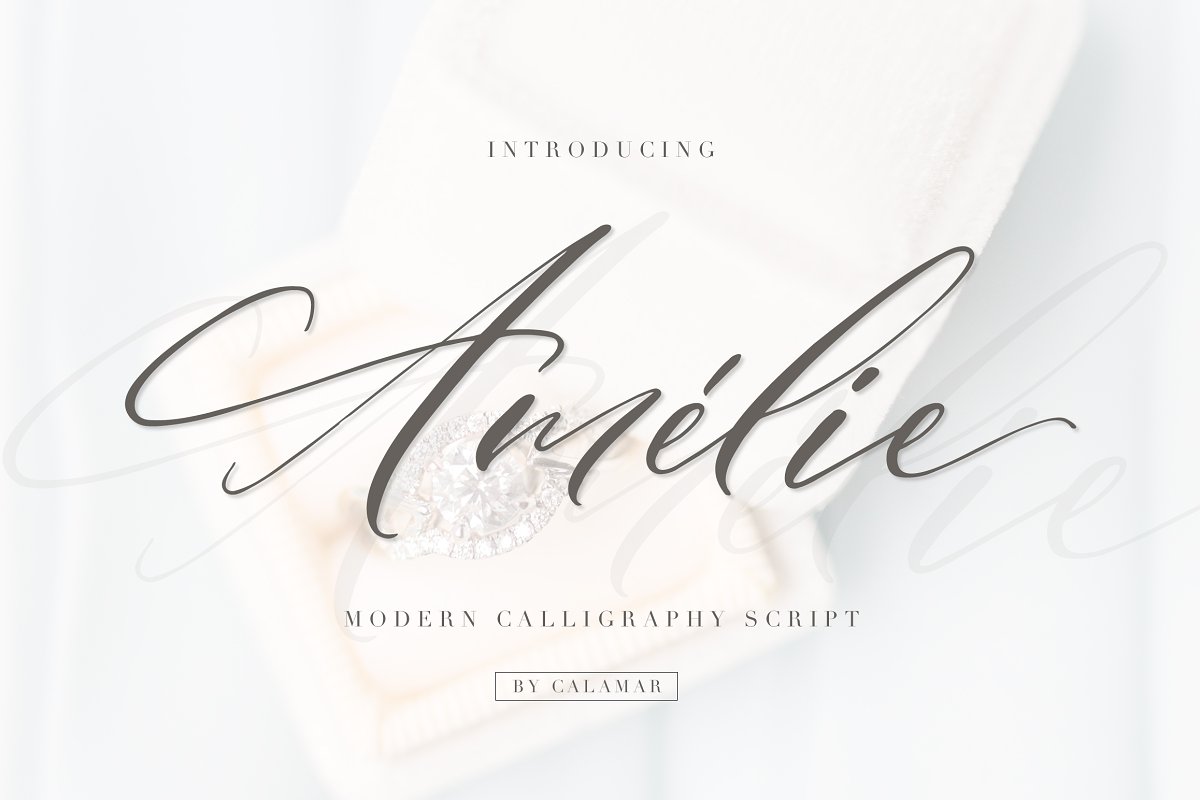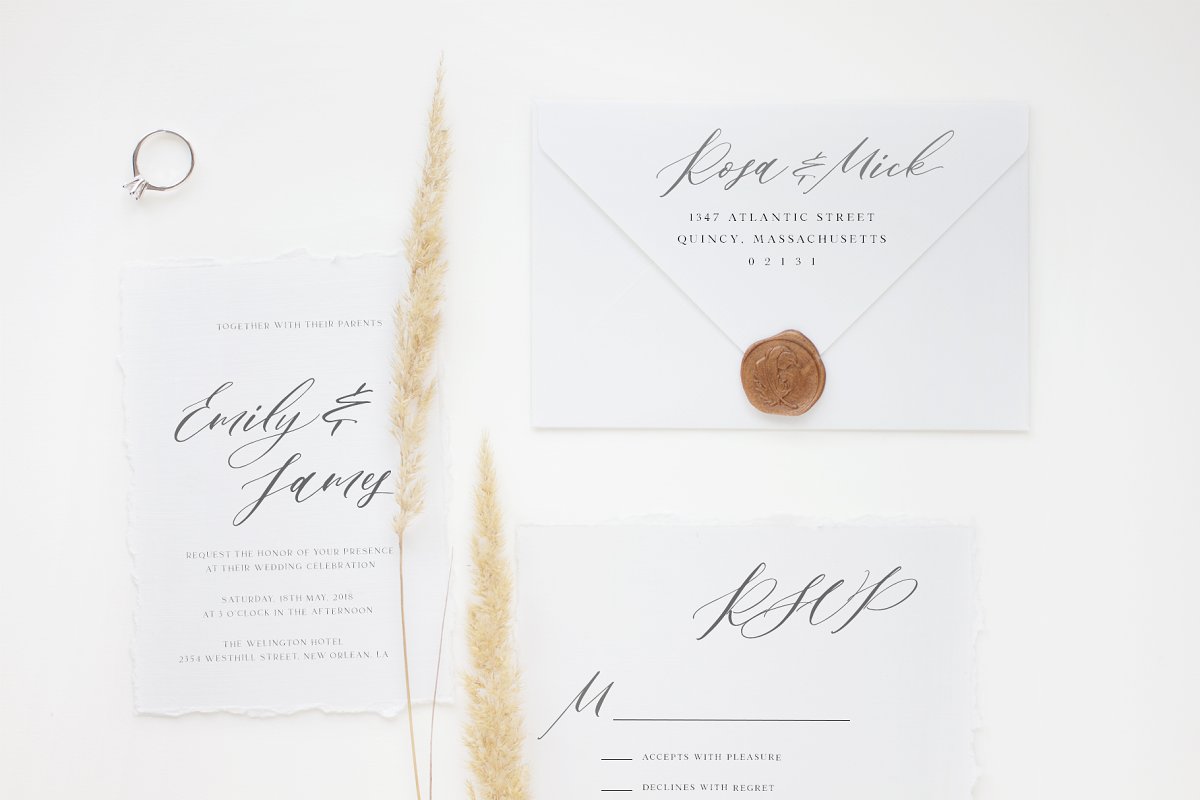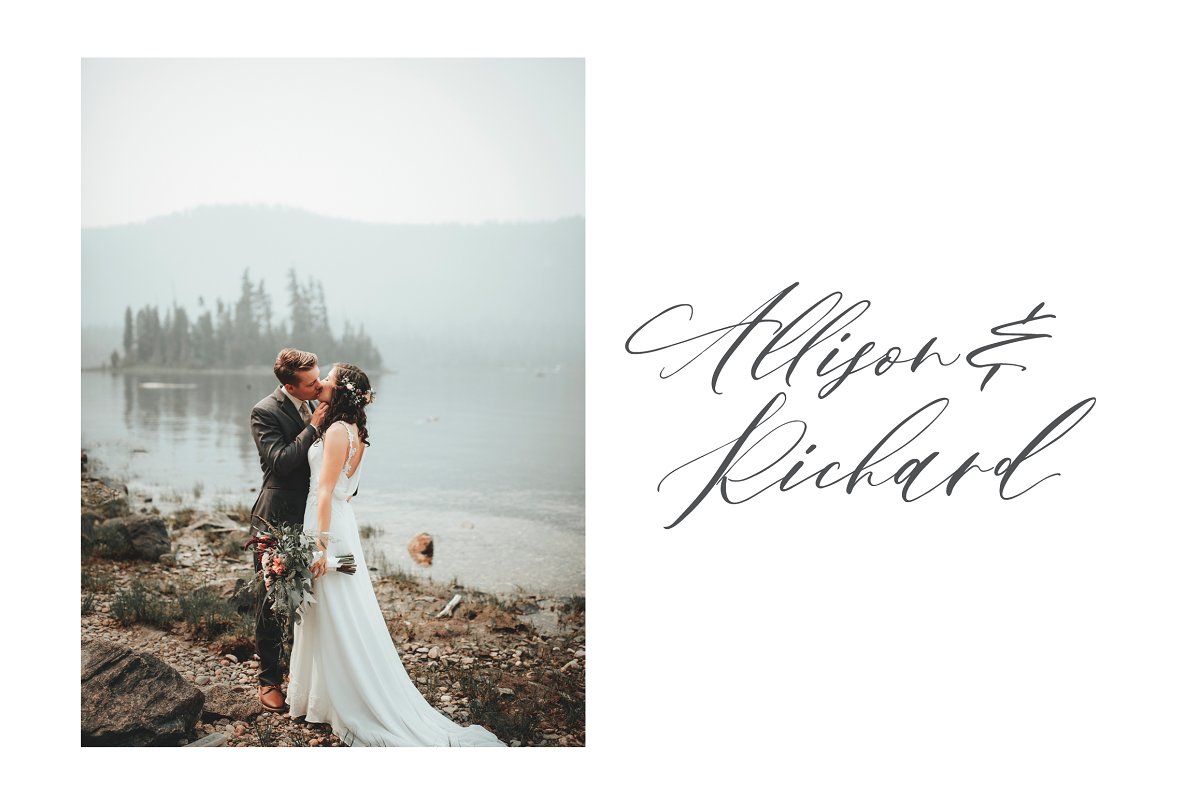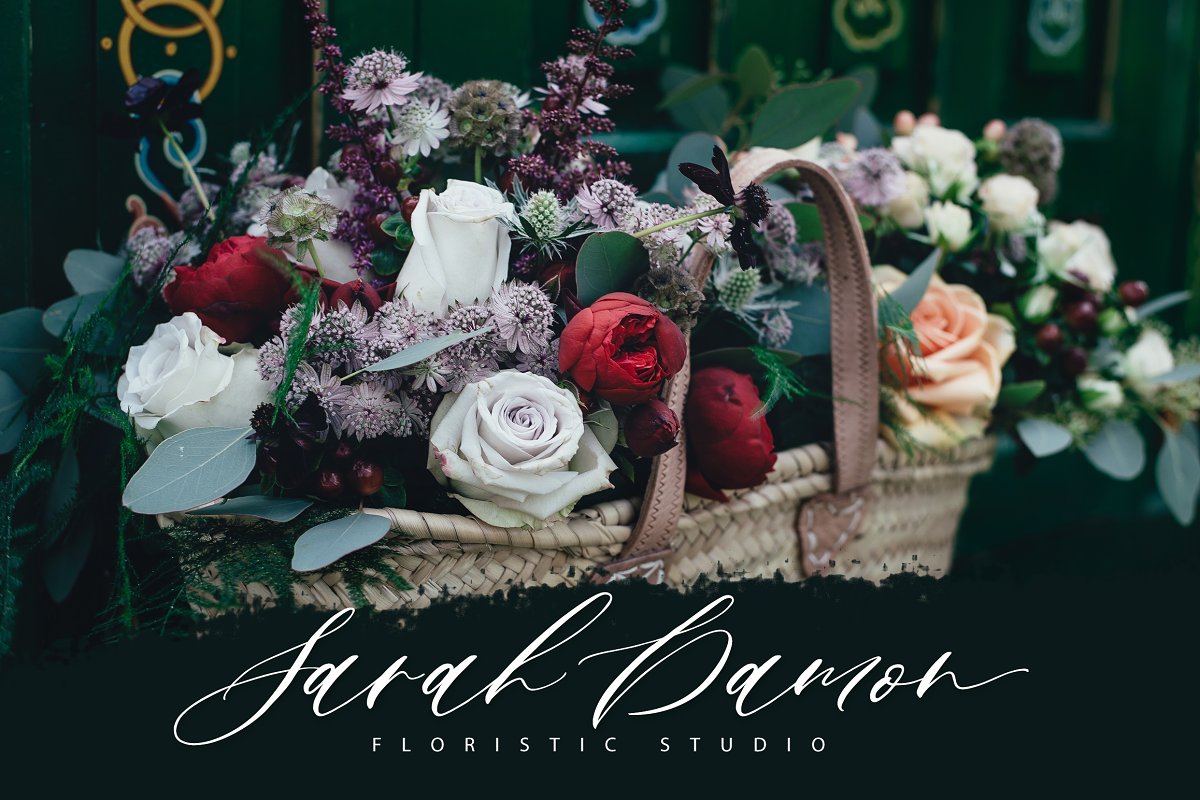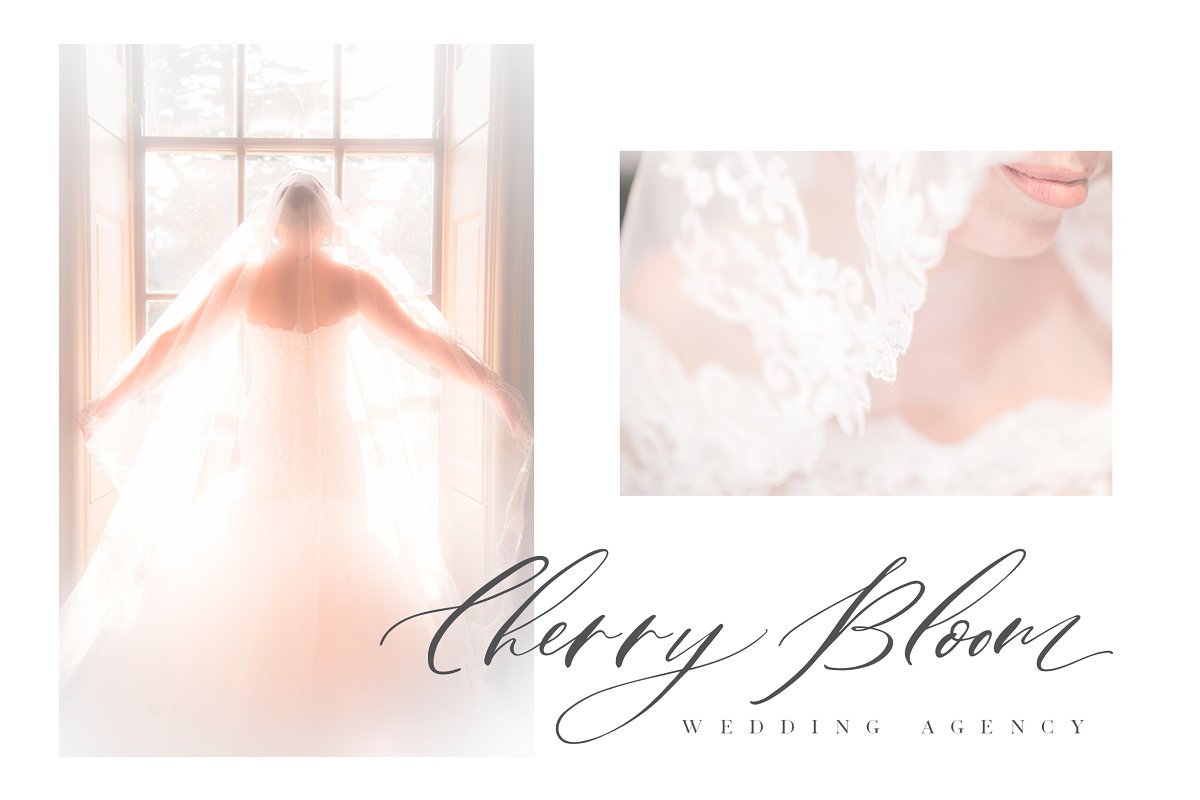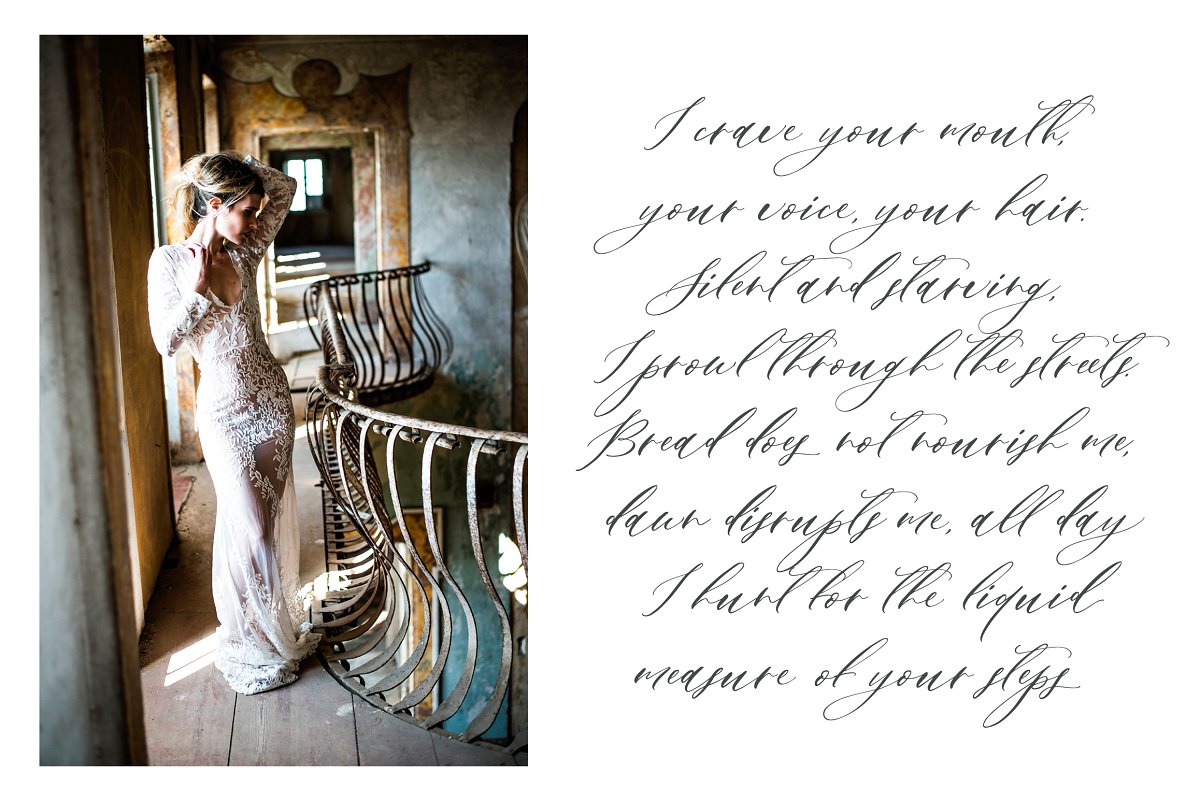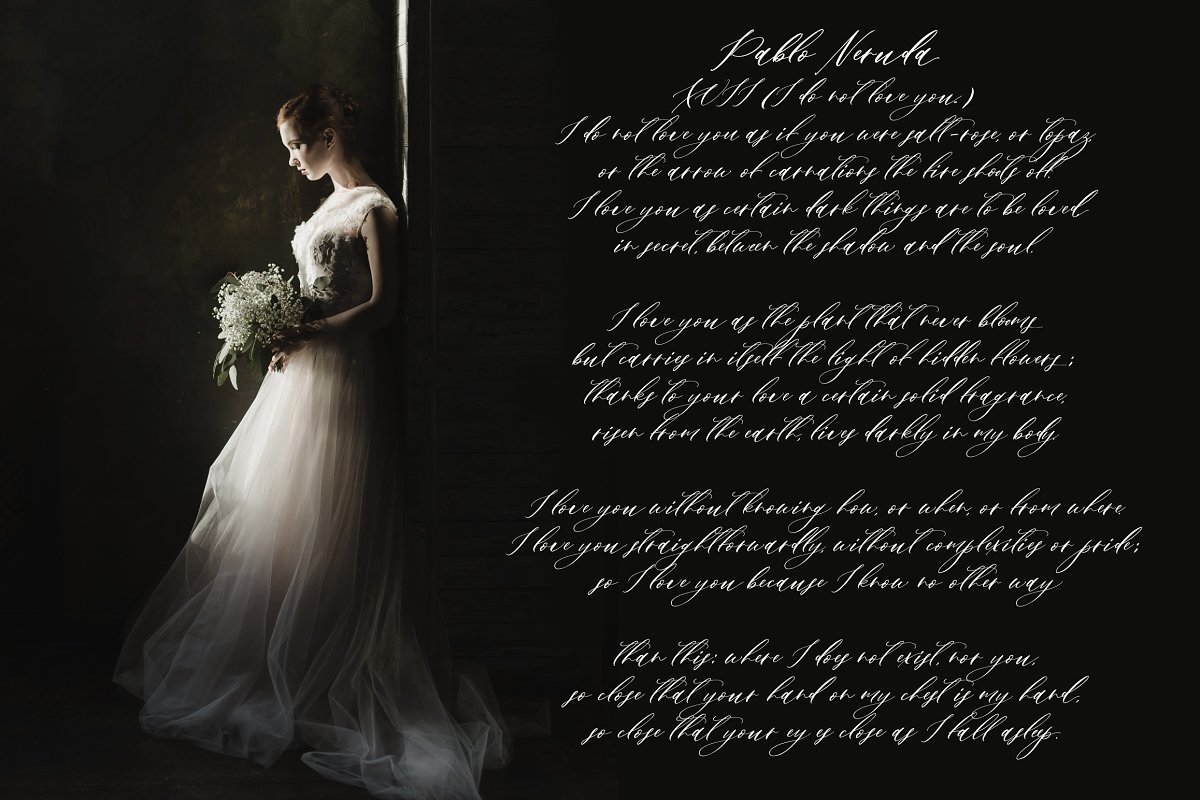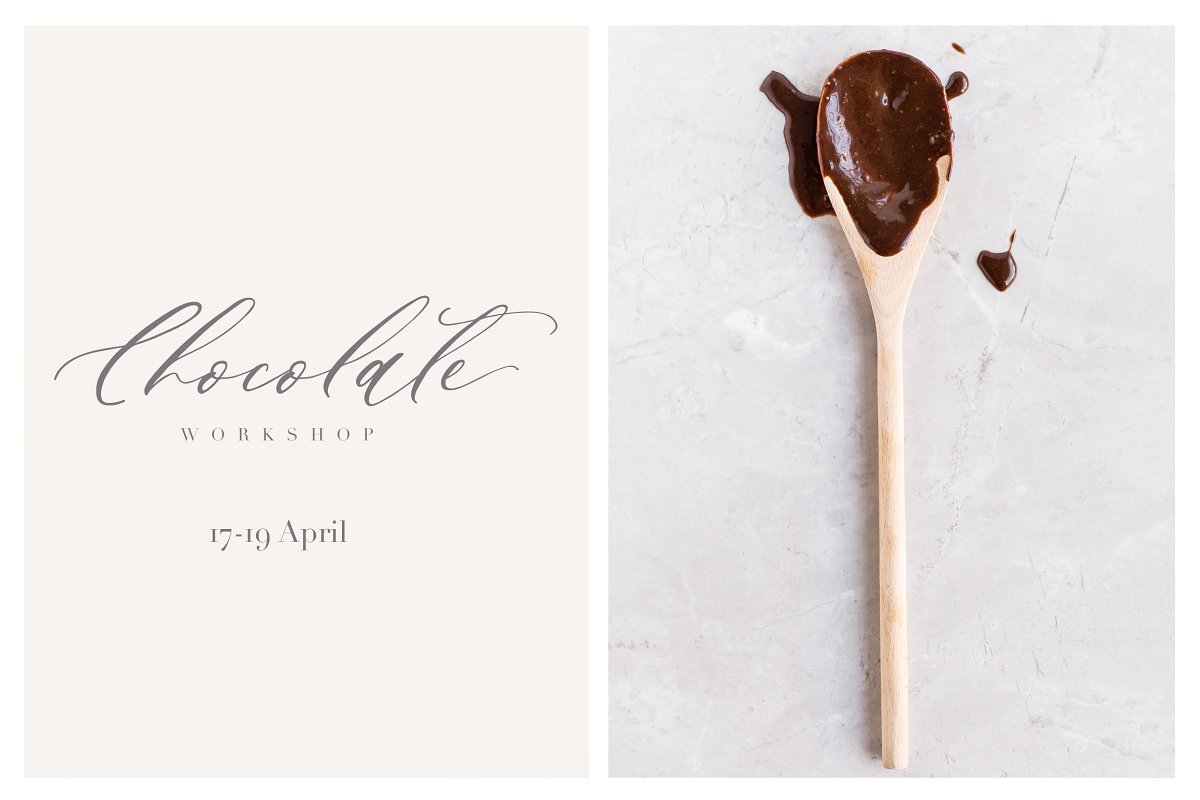
About the Amelie Script Font
Amélie Script is an elegant and romantic font that will look awesome on logos, branding materials, wedding and event stationery, social media overlays, cards and so on, Amélie Script includes Upper and Lowercase Basic Characters, Numbers and Punctuation, OPEN TYPE FEATURES (OTF) include:Stylistic alternates both for uppercase and lowercase glyphs;Stylistic alternates for final lowercase glyphs (longer tails);Standart and Discretionary Ligatures;Contextual alternates (final glyphs)